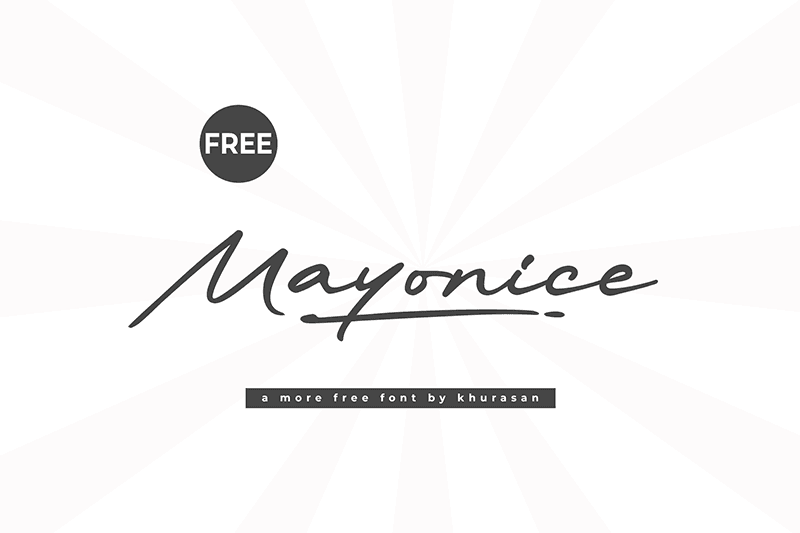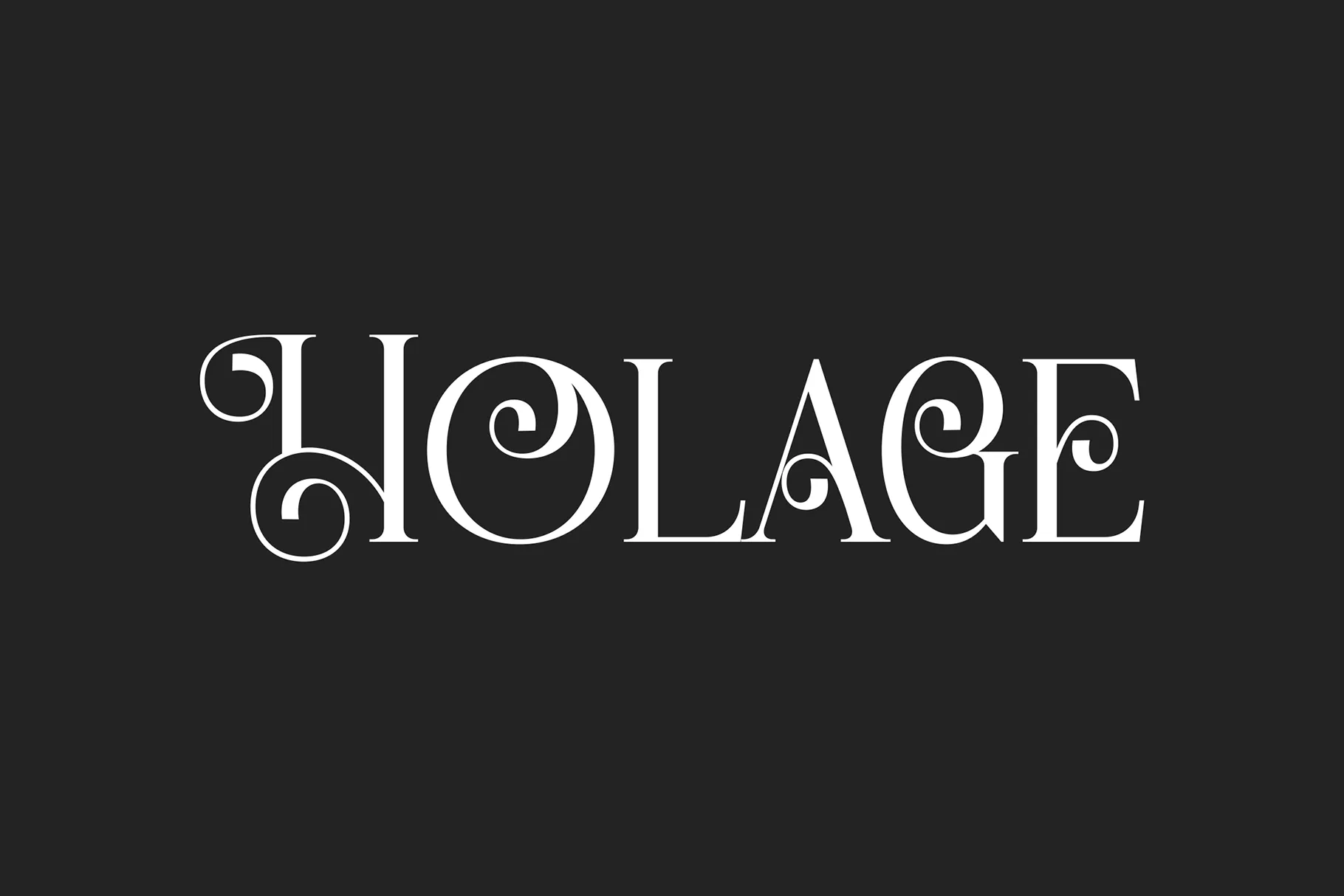
In today’s fast-moving digital world, design is more than just aesthetics — it’s a tool for communication, storytelling, and trust-building. One of the most powerful design elements is typography. Fonts have the unique ability to shape your brand’s identity, evoke emotion, and guide user behavior.
Why Font Choice Matters for Branding
Typography is often the first voice of your brand. The right font can instantly signal luxury, innovation, friendliness, or professionalism. On the other hand, a mismatched typeface can confuse your audience or dilute your brand identity.
In 2025, design trends are shifting toward bold personalization and visual clarity. This means fonts need to strike a balance between style and readability, personality and professionalism. The good news? You don’t need a big budget to find fonts that meet these demands.
1. Bellmore — Classic Serif Typeface
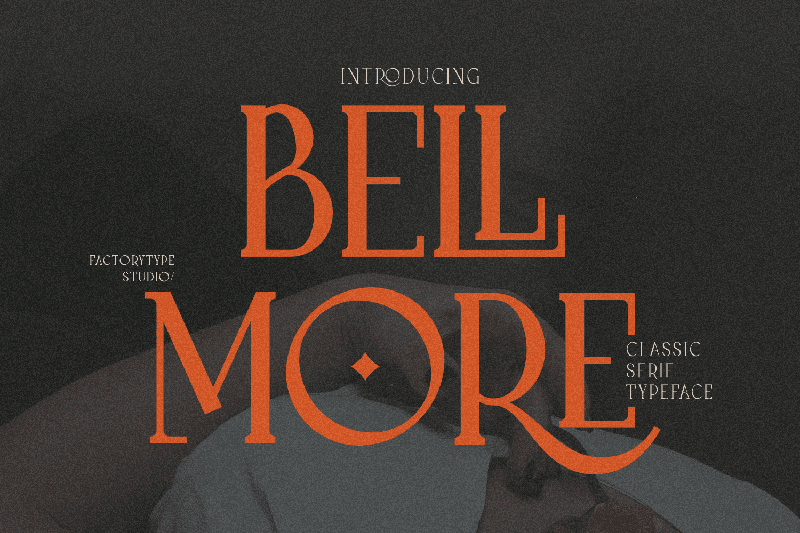
Bellmore is a sophisticated serif font with refined curves and crisp edges. It’s ideal for upscale branding, fashion magazines, or editorial design.
Use it for: Real estate branding, bridal stationery, perfume packaging.
Why it works: Its timeless elegance makes any design feel premium and trustworthy.
2. Geoform — Geometric Sans Serif Font Family
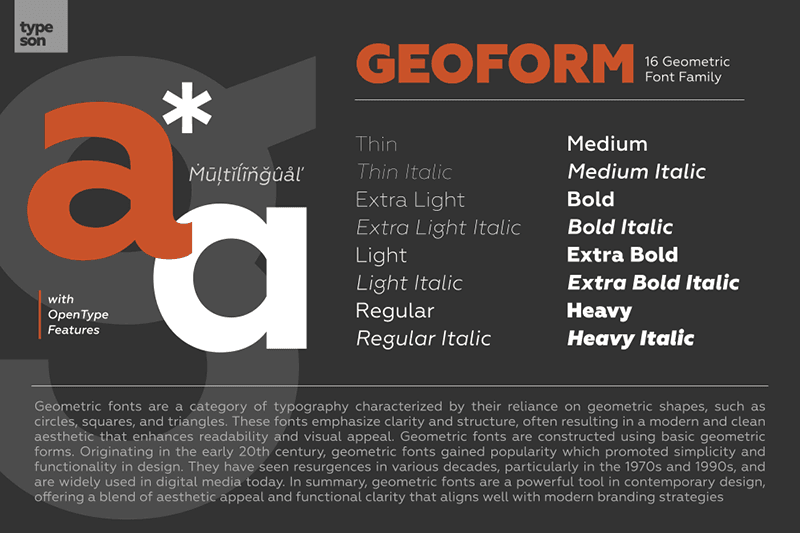
Geoform is a clean, modern sans-serif based on geometric principles. It’s versatile, structured, and incredibly legible — ideal for digital interfaces.
Use it for: Tech startups, apps, fintech brands, clean websites.
Why it works: It communicates clarity and efficiency while staying stylish.
3. Biscuitos — Fun and Friendly Display Font
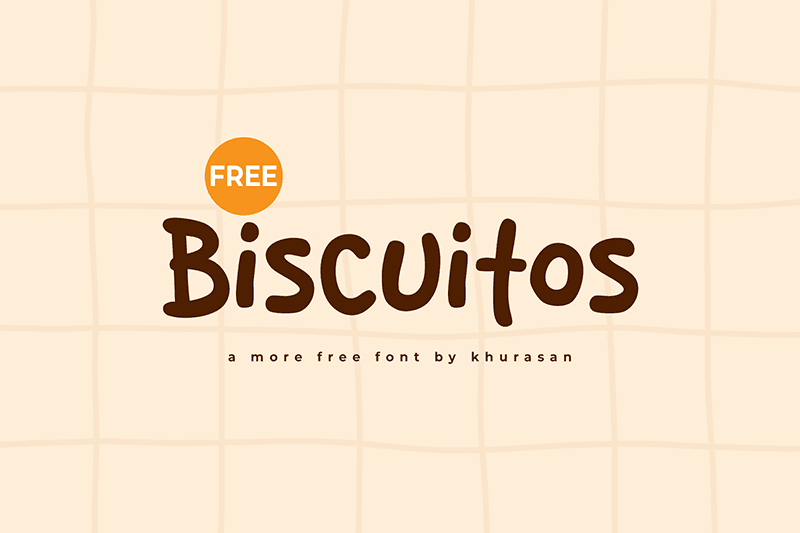
With its rounded forms and handwritten charm, Biscuitos brings a cheerful, handmade vibe to your work.
Use it for: Children’s books, bakeries, party invitations.
Why it works: It radiates warmth and friendliness — perfect for casual or playful branding.
4. Hey Bro! — Funny Handwritten Font
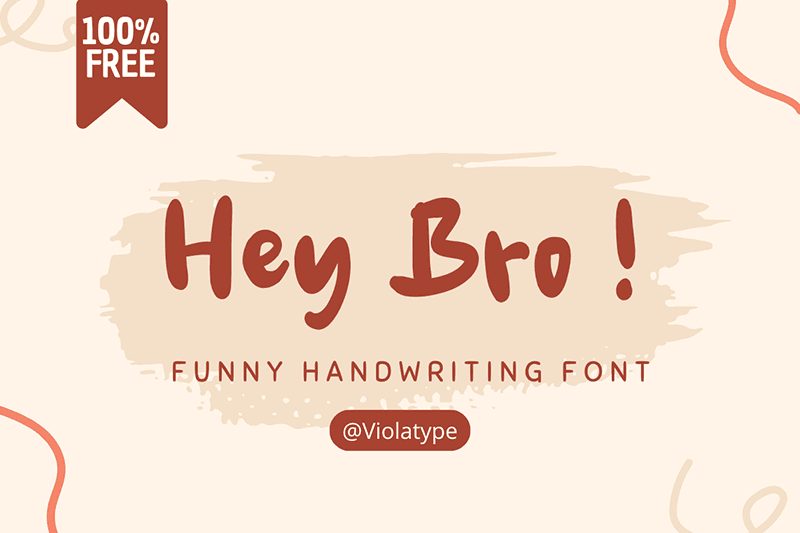
Hey Bro! is bold, energetic, and unapologetically informal. If your brand thrives on attitude and creativity, this is a great pick.
Use it for: Music promotions, social media content, skate brands.
Why it works: Its hand-drawn vibe grabs attention and adds character.
5. Travellia — Script Handwritten Font
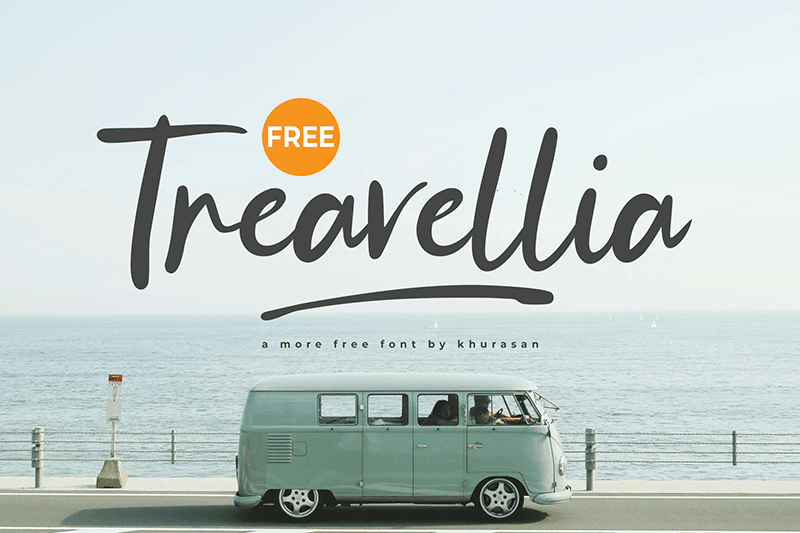
Graceful and flowing, Travellia is a modern calligraphy script that brings charm to elegant designs.
Use it for: Wedding invitations, boutique branding, romantic campaigns.
Why it works: It communicates emotion and femininity beautifully.
6. Redland — Unique Serif Display Font
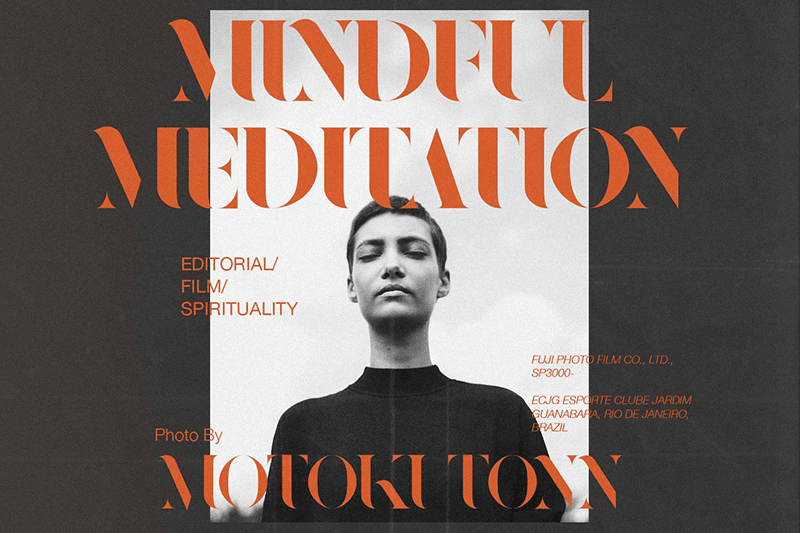
With its vintage tone and rugged edges, Redland feels handmade and bold. It’s great for retro or rustic designs.
Use it for: Outdoor brands, breweries, vintage logos.
Why it works: It adds authenticity and character in a bold, memorable way.
7. Vegabond — Strong Brush Font
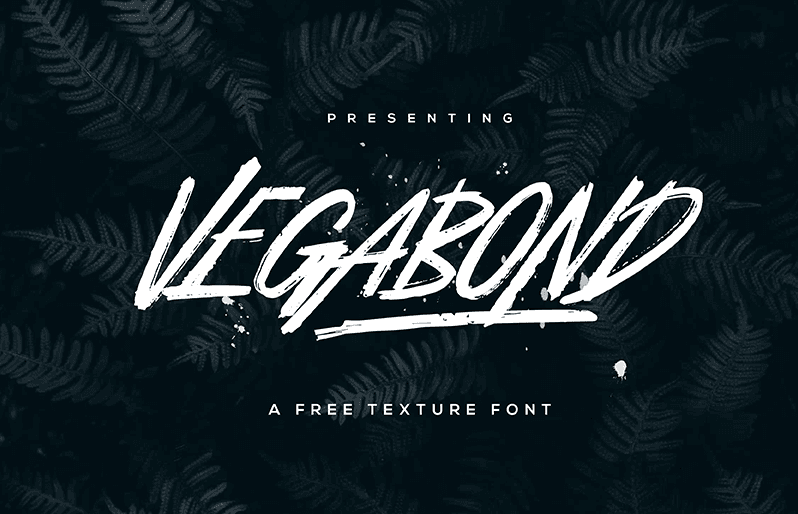
Vegabond is a dynamic brush script that feels natural and free-spirited. It’s ideal for lifestyle brands with a personal touch.
Use it for: Travel blogs, personal branding, product packaging.
Why it works: The brush texture adds energy and a handcrafted look.
8. Sagewold — Classy Sans Serif Font
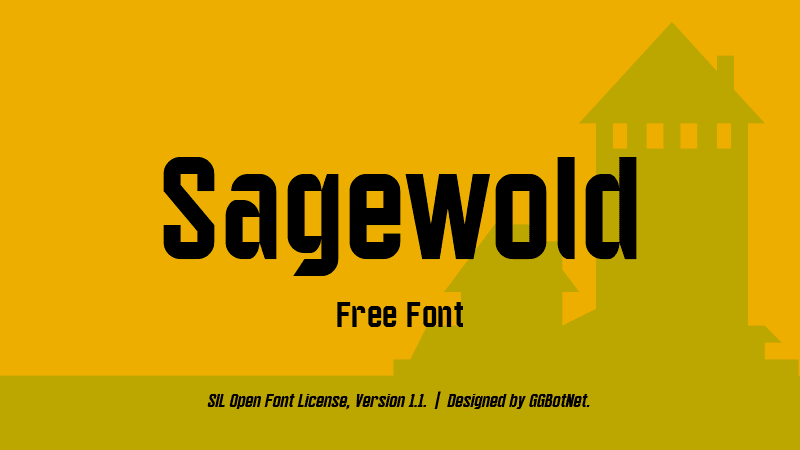
Sagewold combines retro elegance with modern minimalism. It’s clean but stylish — a great choice for boutique businesses.
Use it for: Fashion branding, editorial design, premium packaging.